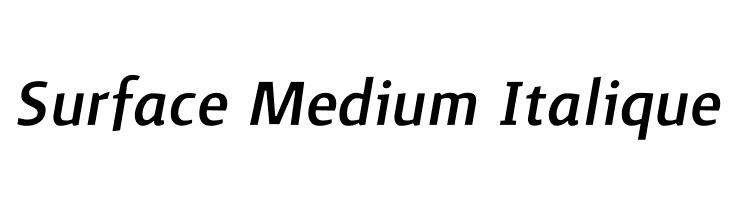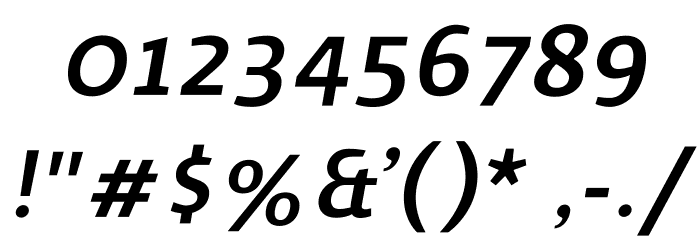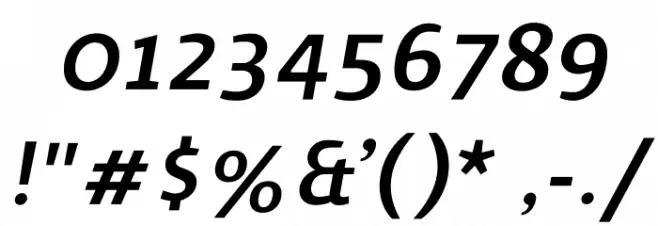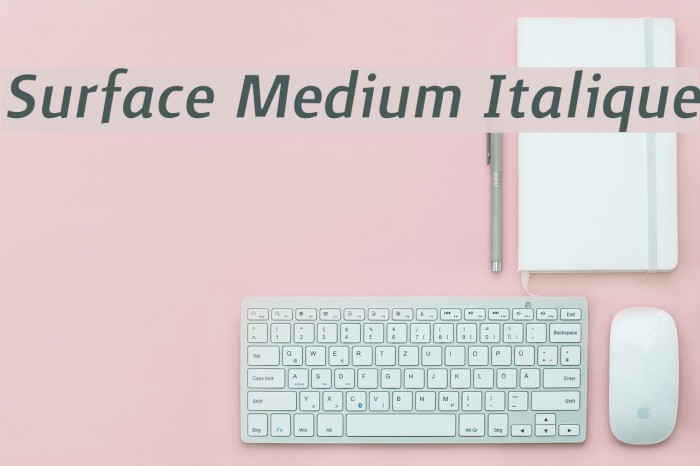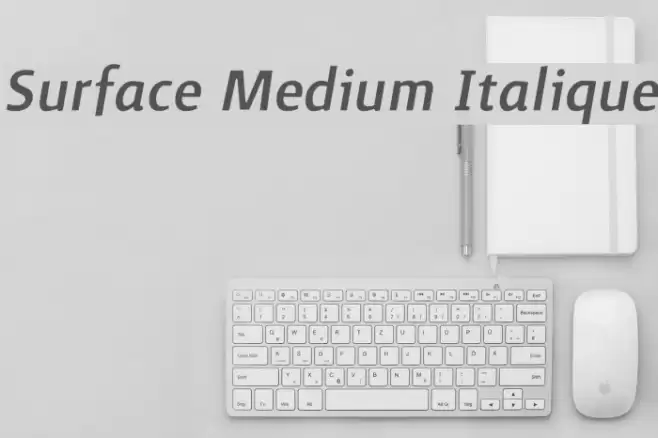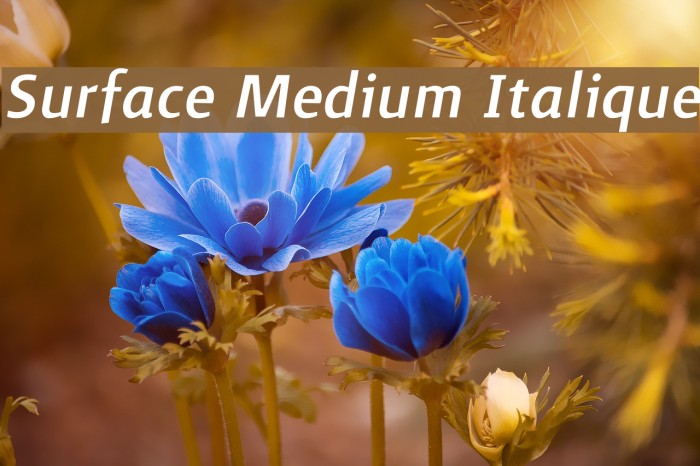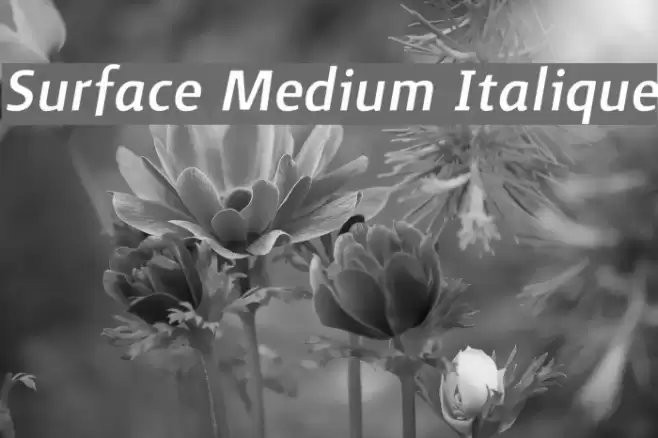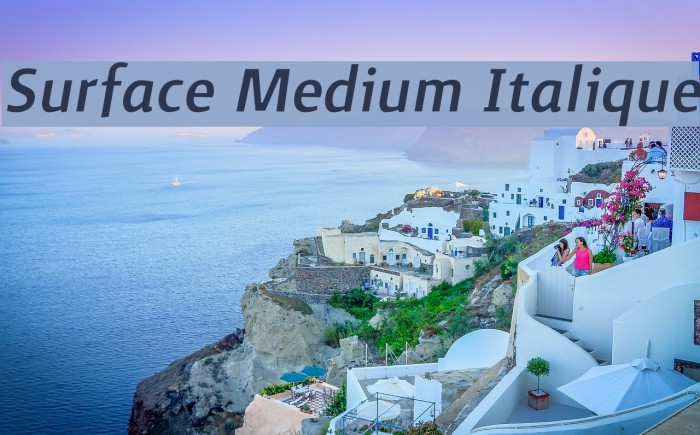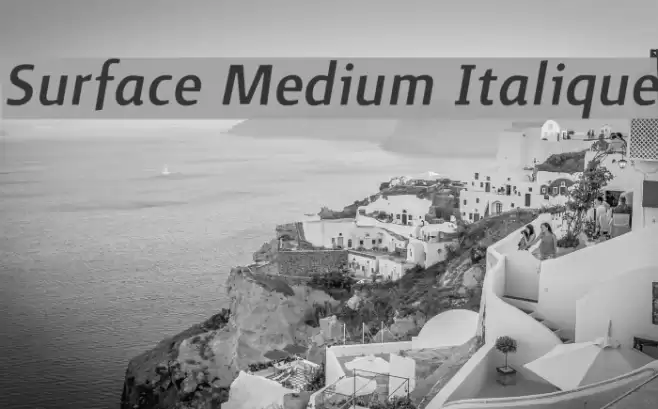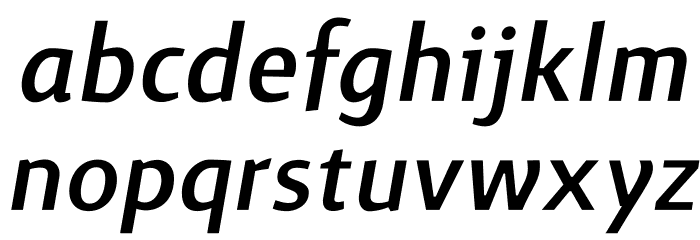
Surface Medium Italique Font
Surface Medium Italique Description
This font presents a sleek and modern appearance with a slight italic slant, giving it a dynamic and forward-moving feel. The characters are clean and well-defined, with a consistent medium weight that ensures readability across different sizes. The sans-serif design contributes to its contemporary look, making it suitable for a variety of digital and print applications. The character spacing is normal, providing a balanced and harmonious text flow. The font's medium contrast in stroke thickness adds to its legibility while maintaining a stylish aesthetic.
| Use Case | Headlines, Body text, Logos |
| Proposed Projects | Ideal for branding, advertising, web design, and editorial projects where a modern and dynamic look is desired. |